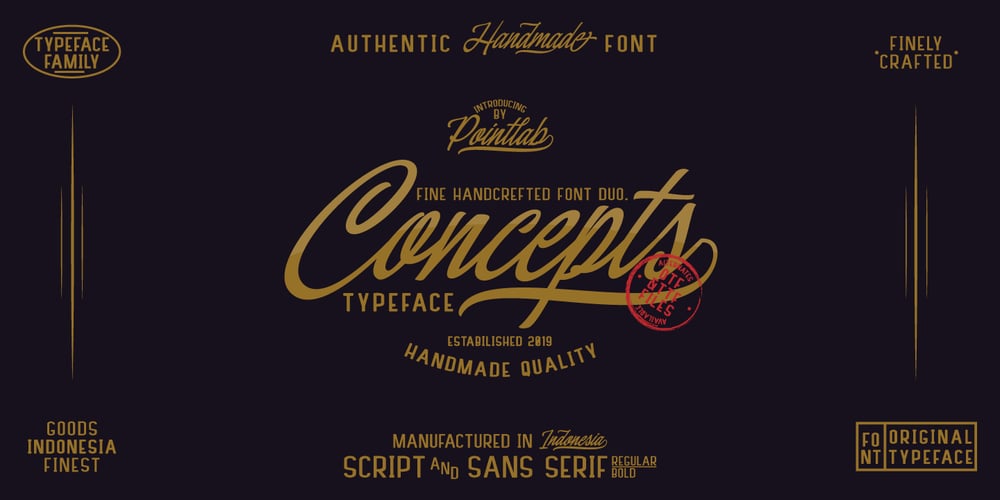
Concepts Font Family was designed by Ferdiansyah and published by Pointlab. Concepts contains 3 styles and family package options. Concepts Font Family is a handmade vintage script, sans serif and sans serif bold. Inspired by classic western culture, custom culture motorbikes and combine with vintage touches. There are so many perfect fonts to integrate into your design, especially in vintage designs. With the beauty of this font package, this font is great for logos, badges, clothes, posters, and more. This font comes with opentype and truetype features and also many alternative styles to enhance your design.Features Basic Latin A-Z and a-z Numbers Symbols Stylistic Set Ligature PUA Encode Multilanguage Support To enable the OpenType Stylistic alternates, you need a program that supports OpenType features such as Adobe Illustrator CS, Adobe Indesign & CorelDraw X6-X7.There are additional ways to access alternates, using Character Map (Windows), Nexus Font (Windows), Font Book (Mac) or a software program such as PopChar (for Windows and Mac).If you have any question, don’t hesitate to contact me by email.